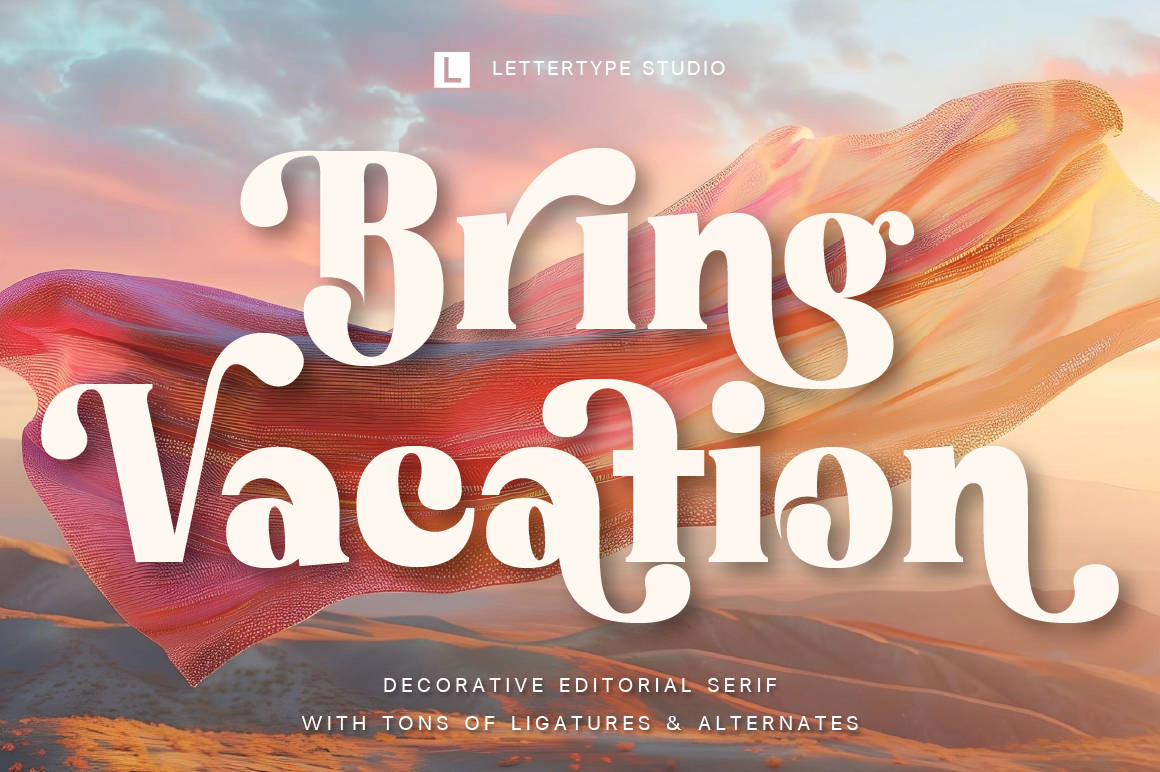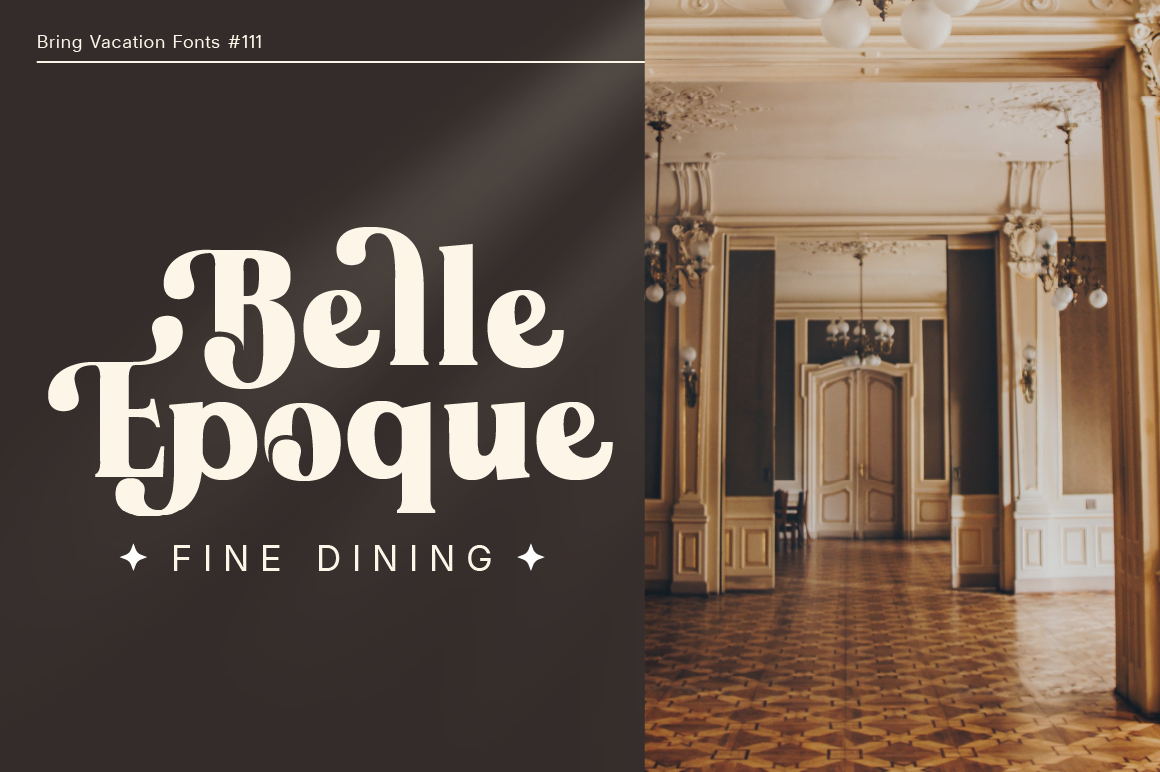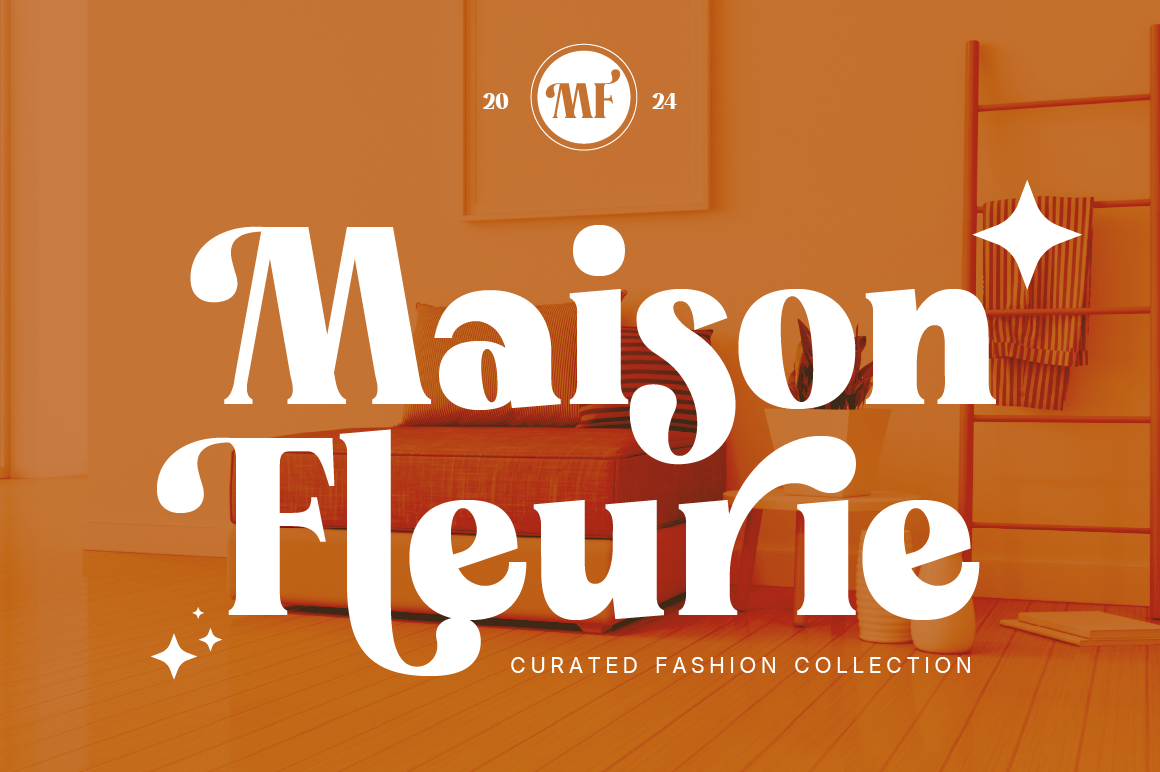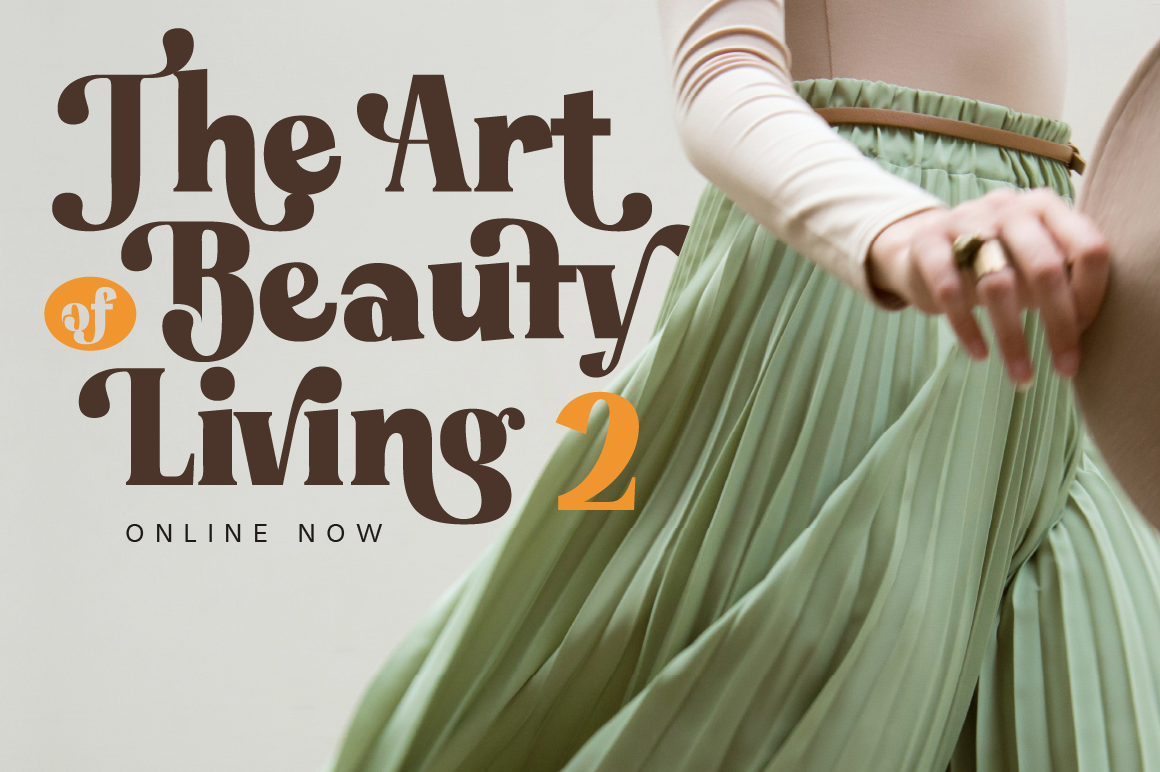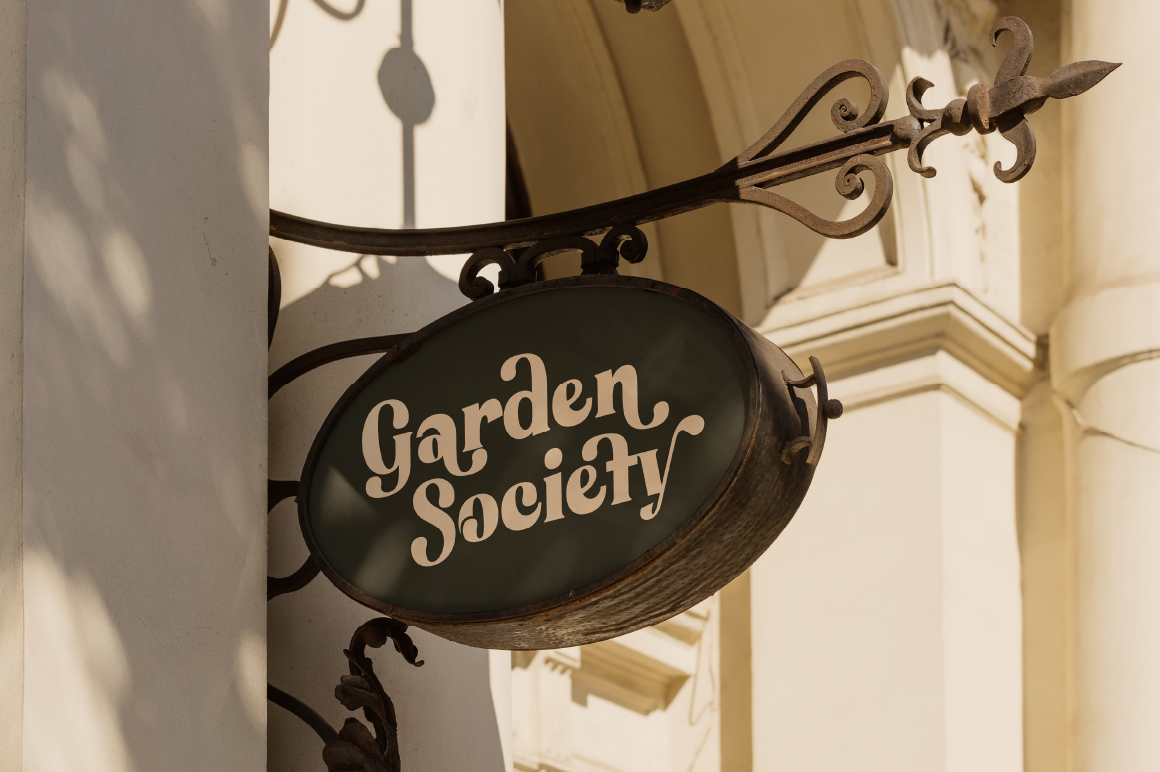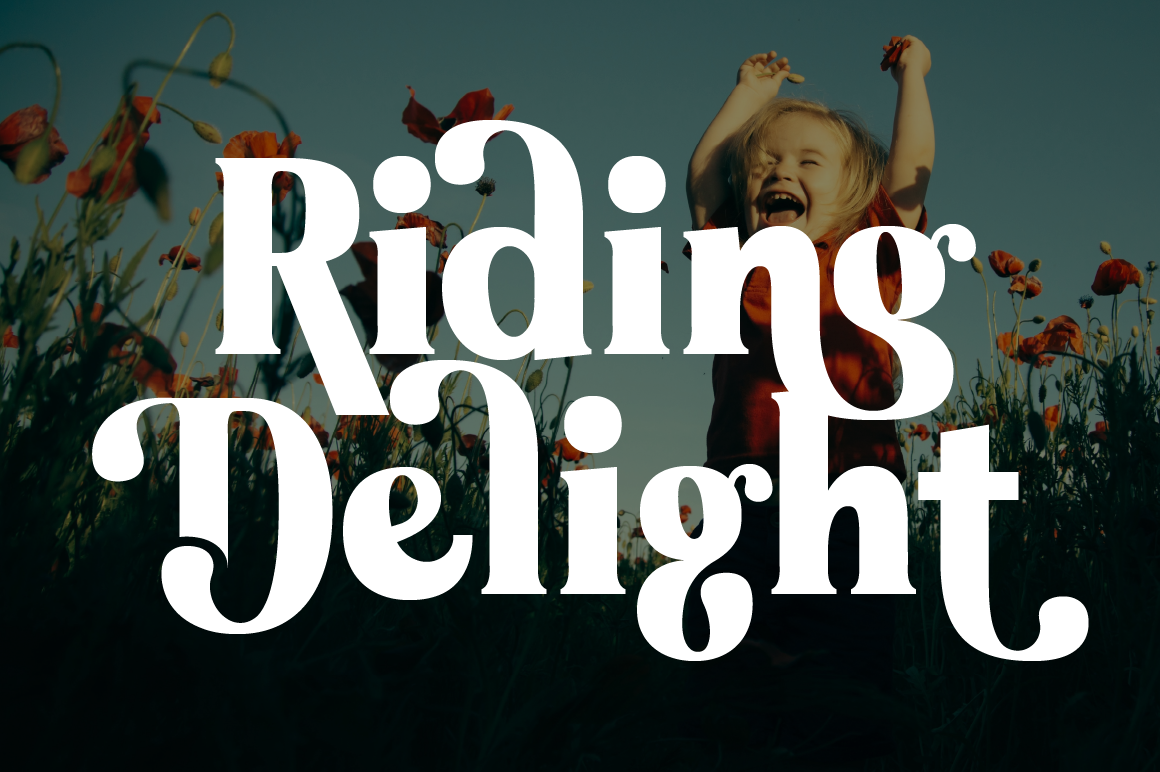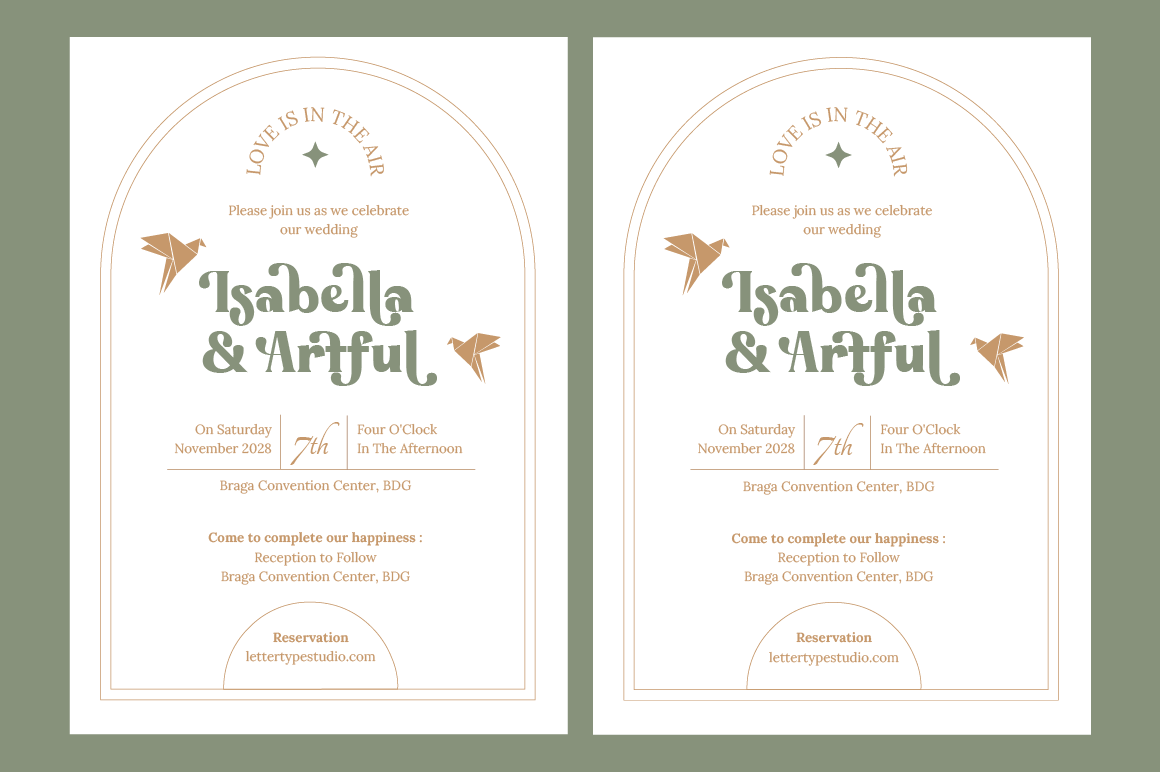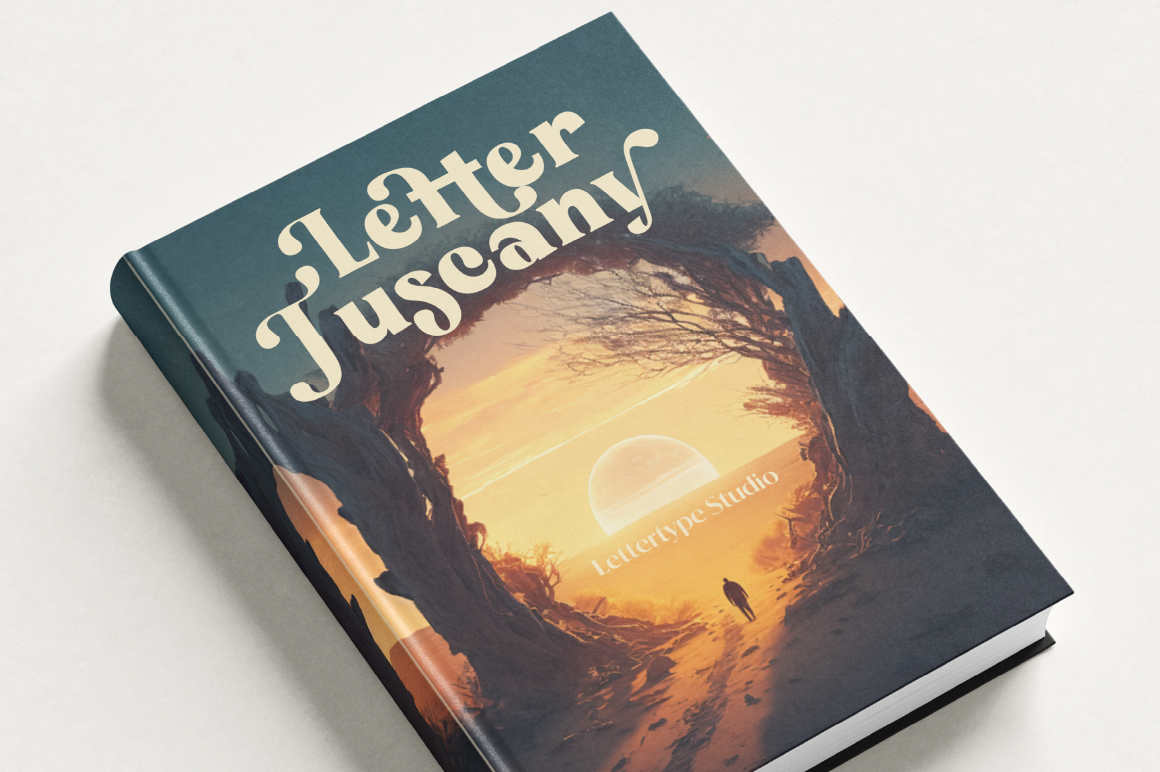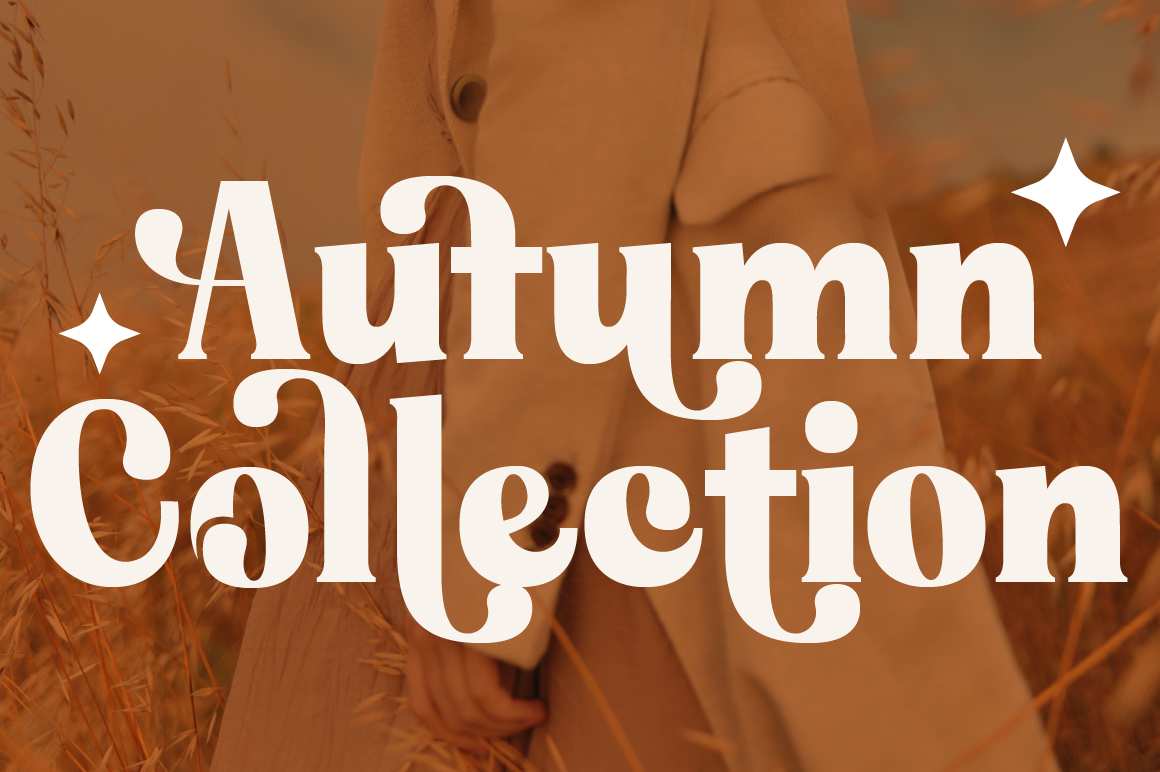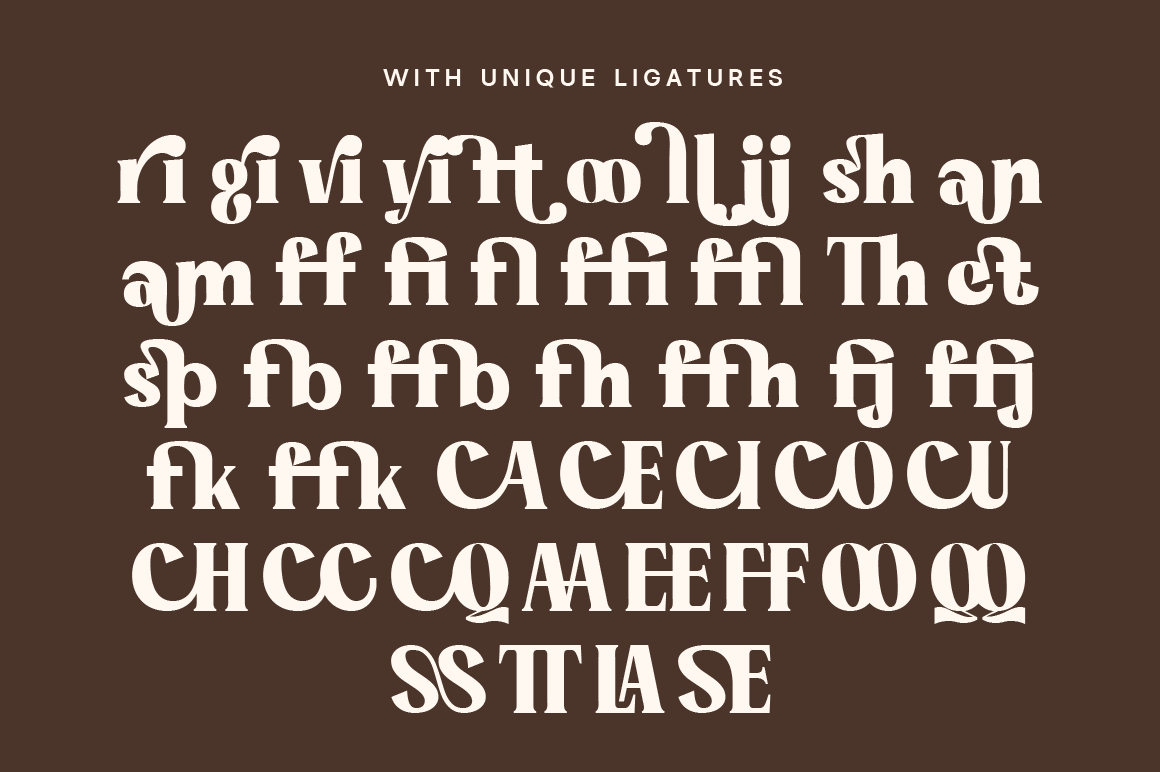
Bring Vacation is a decorative editorial serif typeface created for designers who seek beauty, character, and expressive typography. Inspired by vintage editorial aesthetics, artistic poster design, and romantic visual storytelling, it features flowing terminals, graceful curves, and carefully crafted ligatures that create memorable word shapes and striking compositions.
Unlike conventional luxury serifs that rely solely on contrast and refinement, Bring Vacation embraces personality. Its decorative details and expressive alternates allow designers to build logos, headlines, and branding systems that feel elegant, artistic, and instantly recognizable. Whether used for boutique identities, fashion campaigns, beauty products, restaurant branding, invitations, or publishing projects, the typeface delivers a distinctive visual voice that stands apart from ordinary serif fonts.
Bring Vacation feels equally at home on magazine covers, cinematic posters, book titles, artisan packaging, and modern branding projects. The combination of decorative craftsmanship and contemporary usability makes it a versatile display serif for designers who want their typography to communicate both sophistication and emotion.
Bring Vacation Features:
- 2 Styles
- Regular & Italic
- 78 Alternates & 43 Unique Ligatures
- 572 Glyphs Total
- 260+ Languages Support
Perfect For:
- Boutique Branding
- Fashion Campaigns
- Cinematic Posters
- Publishing & Editorial Design
- Artisan Packaging